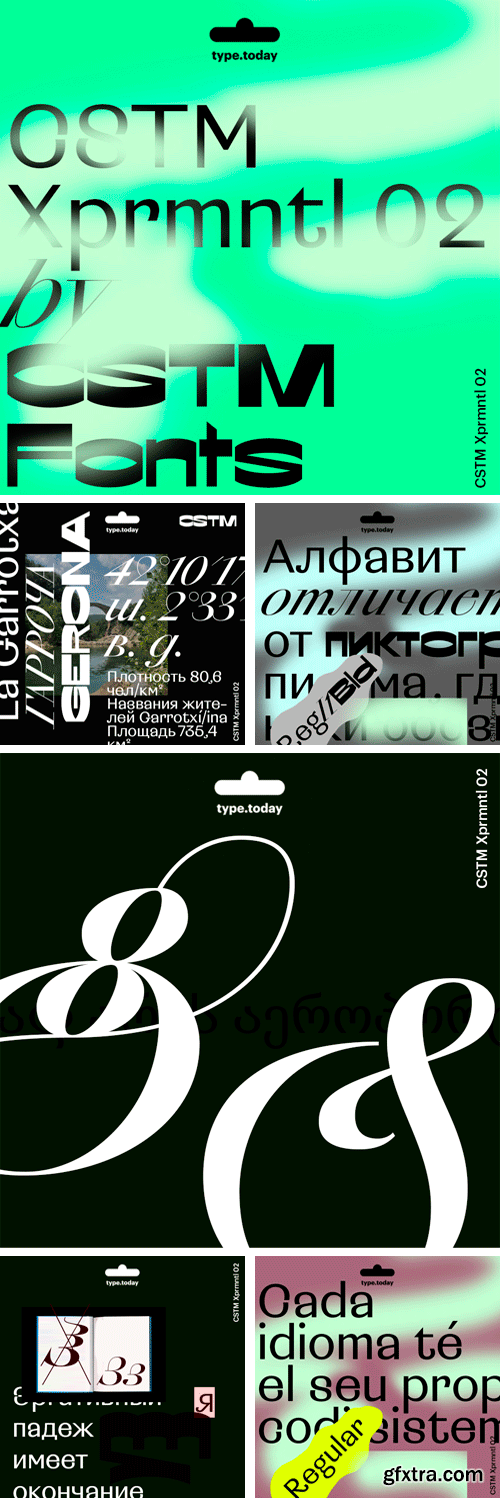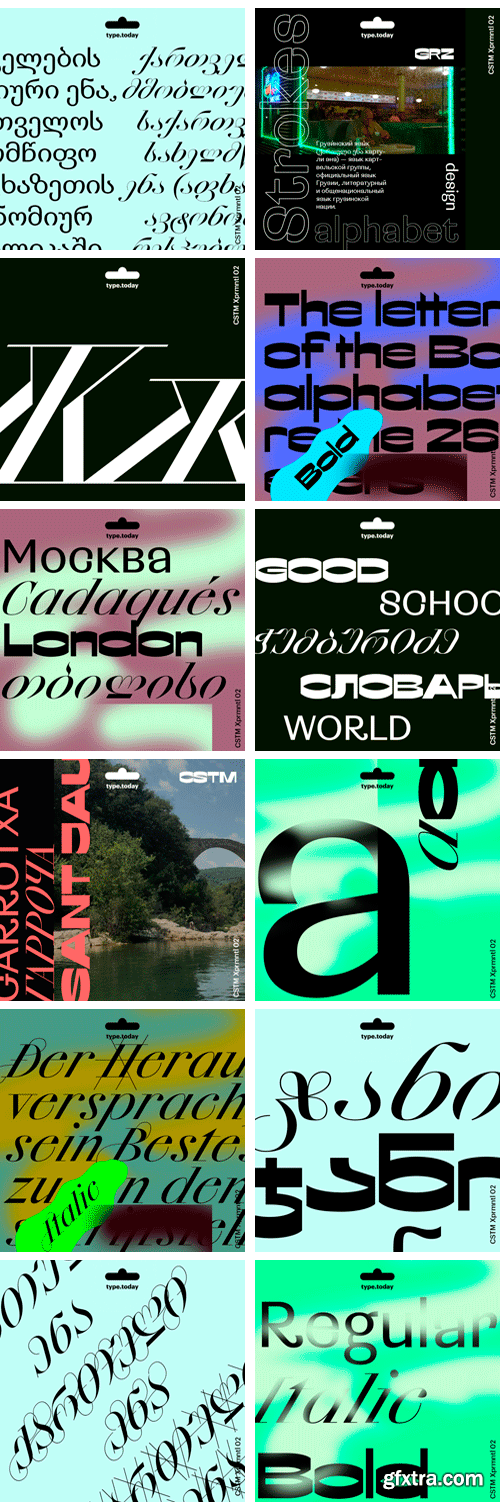
CSTM Xprmntl 02 Font Family
The CSTM Xprmntl 02 font family is another representative of the “quick fonts” series at type.today. This experiment unites three completely different fonts in one family: Regular, an ultra-closed sans serif with exaggerated, curling stroke endings; Italic, a contrast serif with deliberately straightened strokes of diagonal glyphs; and Bold, a rough sans serif with an inverted contrast of strokes and proportions. Xprmntl 02 is yet another take on the issues of type compatibility. What if we try to combine seemingly incompatible graphics – fonts of different classification categories, with different personalities and styles – in one space?
Just like the first Xprmntl, CSTM Xprmntl 02 was created in real time at the CSTM Fonts Telegram channel, and its subscribers could watch the process online. The three styles of Xprmntl 02 use the same case, but the Cursive has been enhanced with two sets of swashes for capital letters. For CSTM Fonts, this is the first typeface that supports Georgian, and we would like to thank Alexander Sukiasov, a designer from Tbilisi, for his invaluable advice.